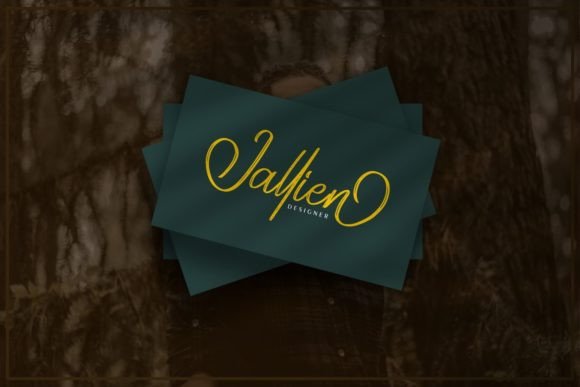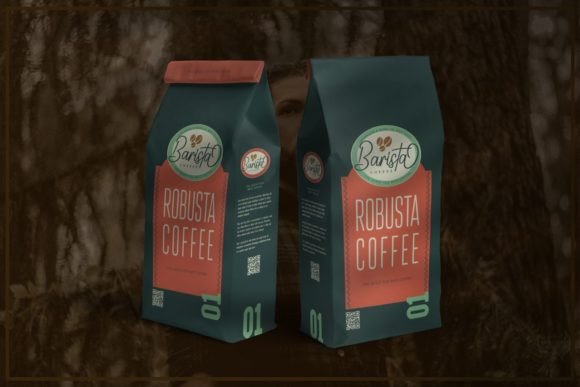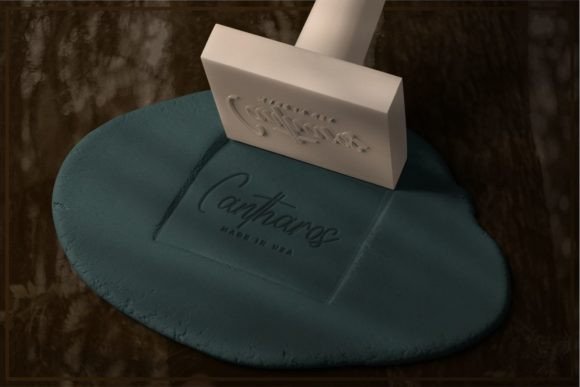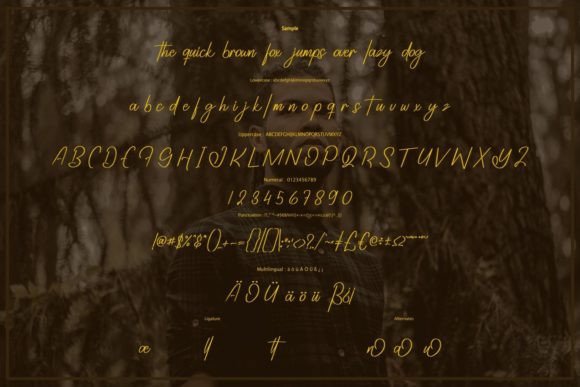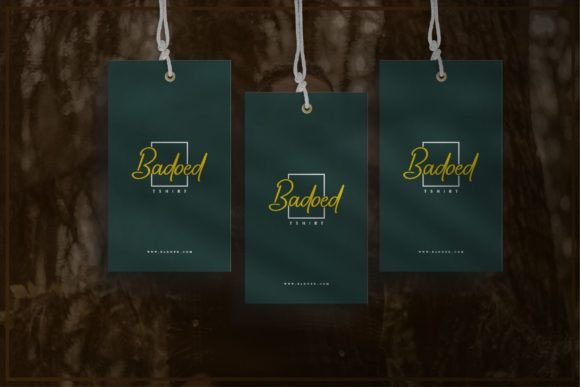
Bring Modern Elegance to Your Projects with Jastarod Font
Jastarod Font is a sleek modern brush script font designed with a beautiful calligraphy style. This font combines artistic brush strokes with a contemporary feel, making it perfect for adding a personal yet polished touch to your creative work. Whether you are designing wedding invitations, branding materials, or social media posts, Jastarod Font offers versatility and style.
Its dynamic, flowing letters bring energy and sophistication, ensuring your designs stand out with a handcrafted flair.
Perfect for a Variety of Creative Uses
Jastarod Font works wonderfully across many design applications, such as:
Wedding and event invitations
Greeting cards and thank-you notes
Brand logos and business cards
Product packaging and labels
Posters, flyers, and promotional materials
Social media graphics and inspirational quotes
The font’s modern brush calligraphy style gives your text a warm, approachable, and elegant look, suitable for both formal and casual designs.
Easy to Customize and Use
With well-balanced kerning and clear letter spacing, JastarodFont ensures readability across different sizes, making it perfect for both headings and body text.
Why Designers Love Jastarod Font
Designers appreciate JastarodFont for its blend of modern style and handwritten charm. It gives projects a fresh, personal look while maintaining professionalism. Whether you are a graphic designer, small business owner, or DIY crafter, this font will add elegance and personality to your work.
Use JastarodFont to create captivating logos, stylish invitations, or memorable social media content that connects with your audience.